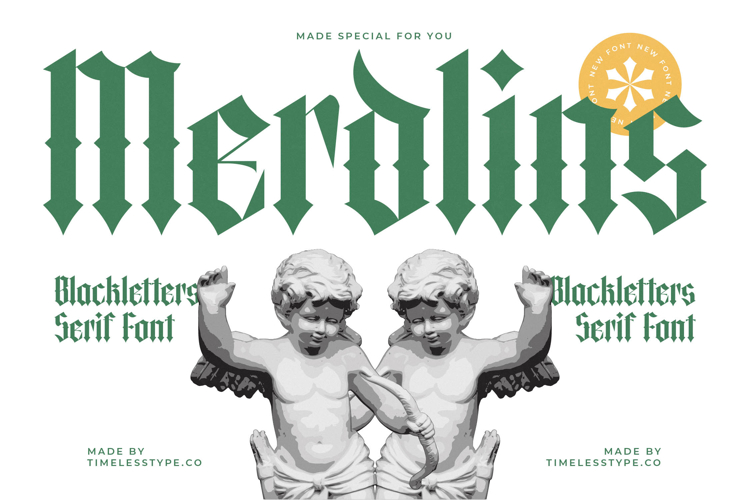
Merdlins - Blackletter Serif Font
Discover the unparalleled distinction of Font Merdlins - Blackletter Serif Font Blackletter, a typeface that masterfully blends historical elegance with contemporary relevance. This unique blackletter serif font boasts a bold presence and high-contrast strokes, making it instantly captivating. Its refined yet robust aesthetic evokes a sense of tradition and authority, perfect for projects demanding a striking visual impact and a touch of the artisanal.
Unleash the full potential of your visual communication with Font Merdlins - Blackletter Serif Font Blackletter, ideally suited for a diverse range of high-end applications. It is perfect for luxury branding, where its unique character elevates product packaging, editorial layouts, and sophisticated logos. Designers will find it indispensable for creating immersive gaming titles, impactful event posters, and captivating headlines that demand attention and convey a sense of gravitas.
Expand your global footprint and connect with diverse audiences with ease, thanks to the inherent versatility of this remarkable typeface. With its extensive multilingual support, Font Merdlins - Blackletter Serif Font Blackletter adapts seamlessly across global markets, making it incredibly versatile for international projects. Ensure your message resonates universally, maintaining its distinctive elegance regardless of language.